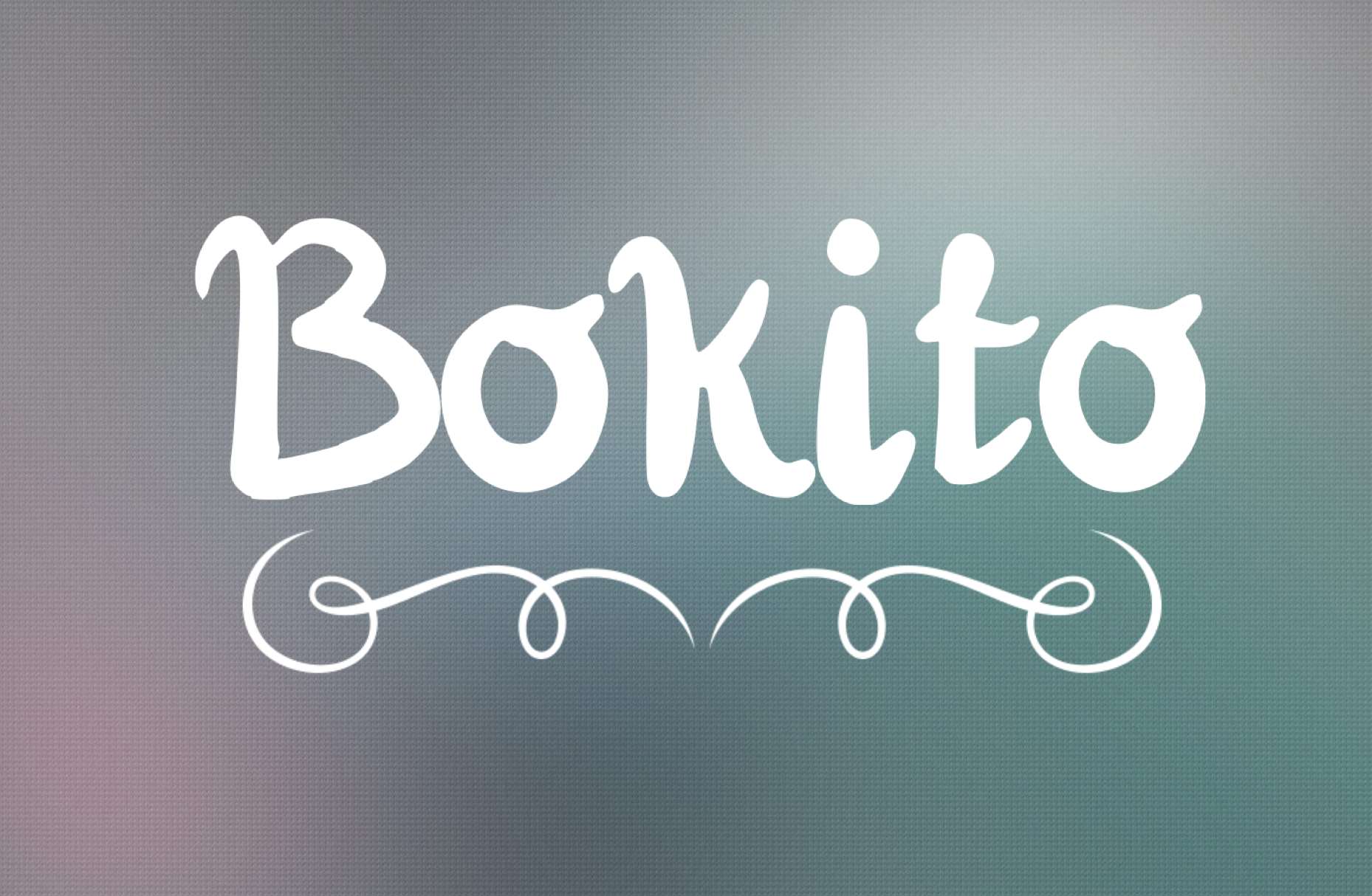
Bokito Handwritten Script Font
Bokito is a handwritten font. Ideal for logos, handwritten quotes, product packaging, header, poster, merchandise, social media and greeting cards